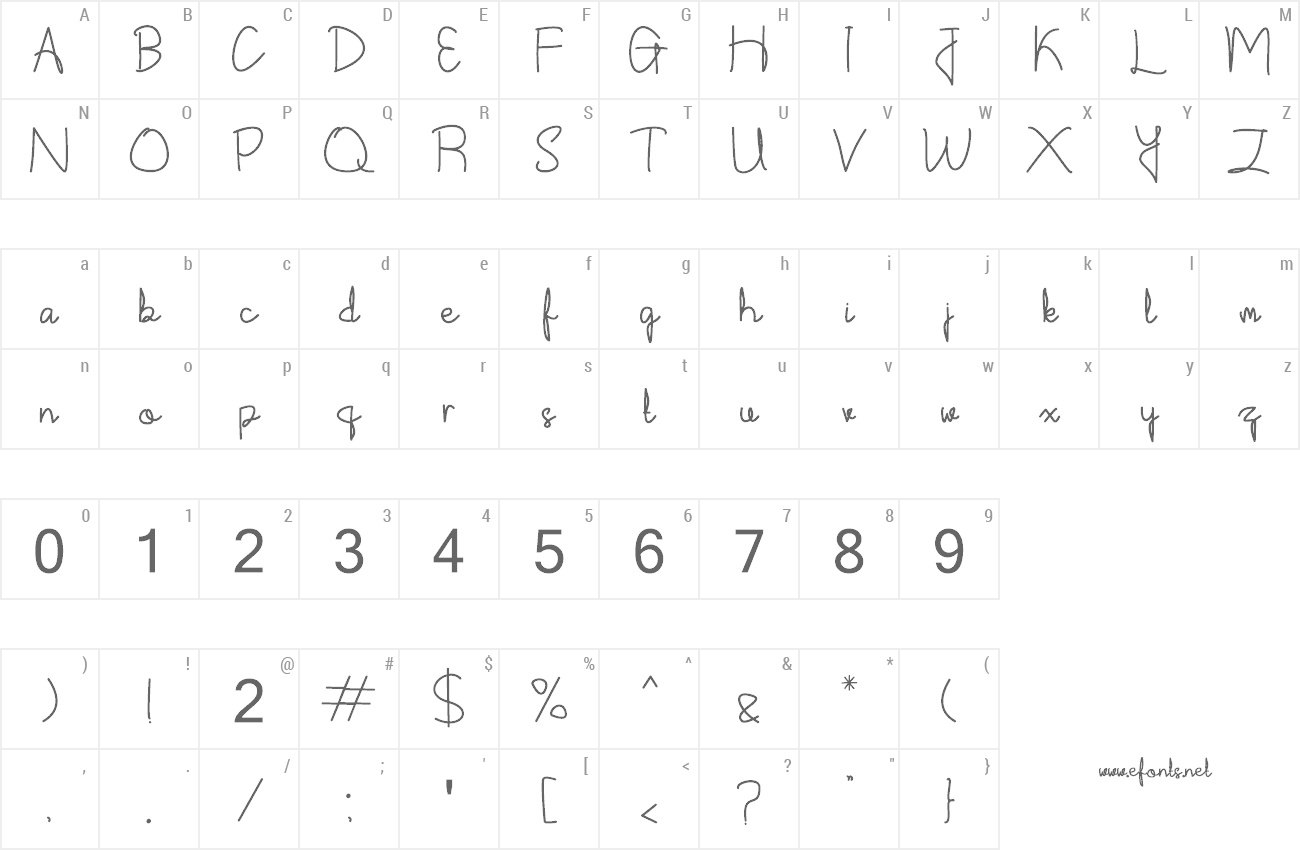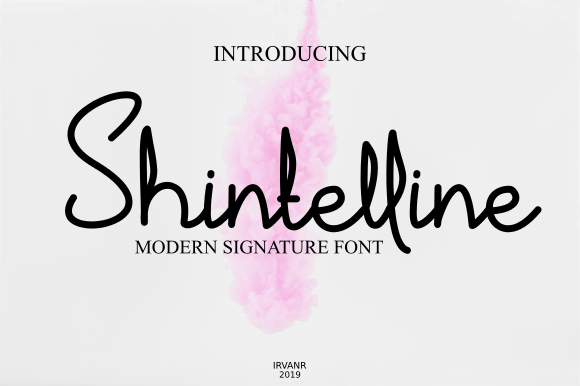
Preview and download Shintelline Font. Created by Irvan R in Script Handwritten styles with Free for personal use license.
Shintelline is a Signature script font. It�s great for branding, posters, quotes, and much more! This Demo Font for Free Personal Use Full Version Font https://www.creativefabrica.com/designer/irvanr/ Donate Link https://paypal.me/RandiIrvan -IrvanR- |